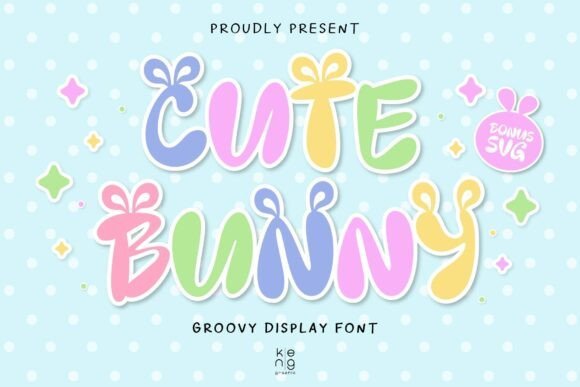
Get Ready to Fall in Love with the Cutest Font Ever!
Have you ever been scrolling through design inspiration boards, only to stumble upon a font so adorable that it instantly brightens up your day? That’s exactly what happens when you come across the Cute Bunny Font. Its whimsical charm and playful vibe are guaranteed to put a smile on your face and spark a wave of creative ideas.
This delightful font is perfect for designers looking to add a touch of innocence and joy to their designs. With its bubbly aesthetic and effortless charm, Cute Bunny Font effortlessly infuses a playful appeal into any design, from casual t-shirts to coffee mugs. Whether you’re a seasoned designer or a budding creative, this font is sure to bring a breath of fresh air to your work and make your designs spring to life.
Cute Bunny Font Key Features
• Font Family: Cute Bunny Font is a unique, hand-drawn font designed to evoke a sense of whimsy and playfulness.
• Unique Characteristics: The font features a distinctive bunny character in various poses and expressions, adding a touch of personality to designs.
Cute Bunny Font Review
I recently had the chance to work with the Cute Bunny Font, and I must say it’s a mixed bag. Here’s what I liked and disliked about it.
• The font is undeniably cute and playful, making it perfect for children’s books, nursery decorations, or any project that needs a touch of whimsy.
• The font is well-suited for short texts and titles, as it’s easy to read and understand at a glance.
• The font comes in a range of sizes, making it easy to scale up or down depending on your design needs.
• The font lacks versatility and can feel a bit too childish for more serious projects.
• The font is not ideal for long blocks of text, as it can become overwhelming and difficult to read.
Overall, I’d say the Cute Bunny Font is a fun and playful addition to any design project, but it’s not a one-size-fits-all solution. If you’re looking for a cute and whimsical font for a specific project, it’s definitely worth considering. However, if you need a more versatile or professional font, you may want to look elsewhere.
Tips for Getting the Most Out of Cute Bunny Font
To get the most out of Cute Bunny Font, use it in conjunction with other playful design elements, such as pastel colors and cute illustrations. You can also use it in a variety of design projects, including social media graphics, party invitations, and children’s book illustrations.
Common Use Cases for Cute Bunny Font
Cute Bunny Font is commonly used in design projects that require a playful and whimsical touch, such as:
• Social media graphics
• Party invitations
• Children’s book illustrations
• Product labels and packaging
• Marketing materials for kids